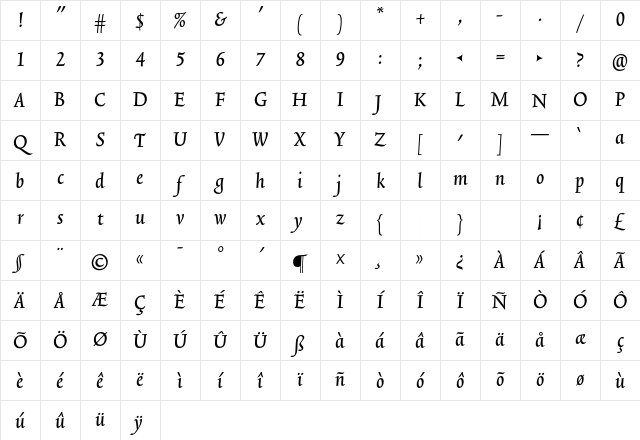
TriniteNo2 MediumItalicTab
Style: MediumItalicTab
Design Context for TriniteNo2
TriniteNo2 is a composed and adaptable typeface that performs quietly and consistently across a wide range of design contexts. The slanted form adds forward momentum and visual energy.
Pro Tip: Use TriniteNo2 for emphasis, pull quotes, and subheadings where its slanted energy can add rhythm to the layout.